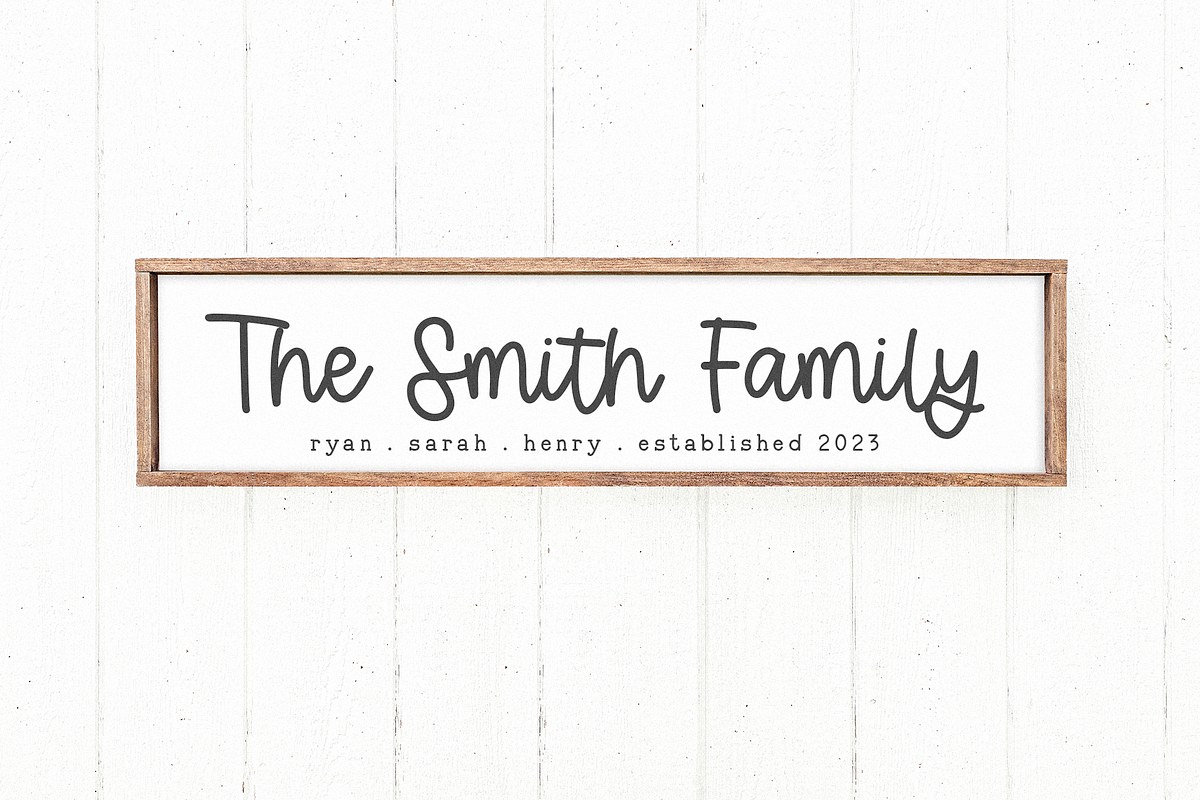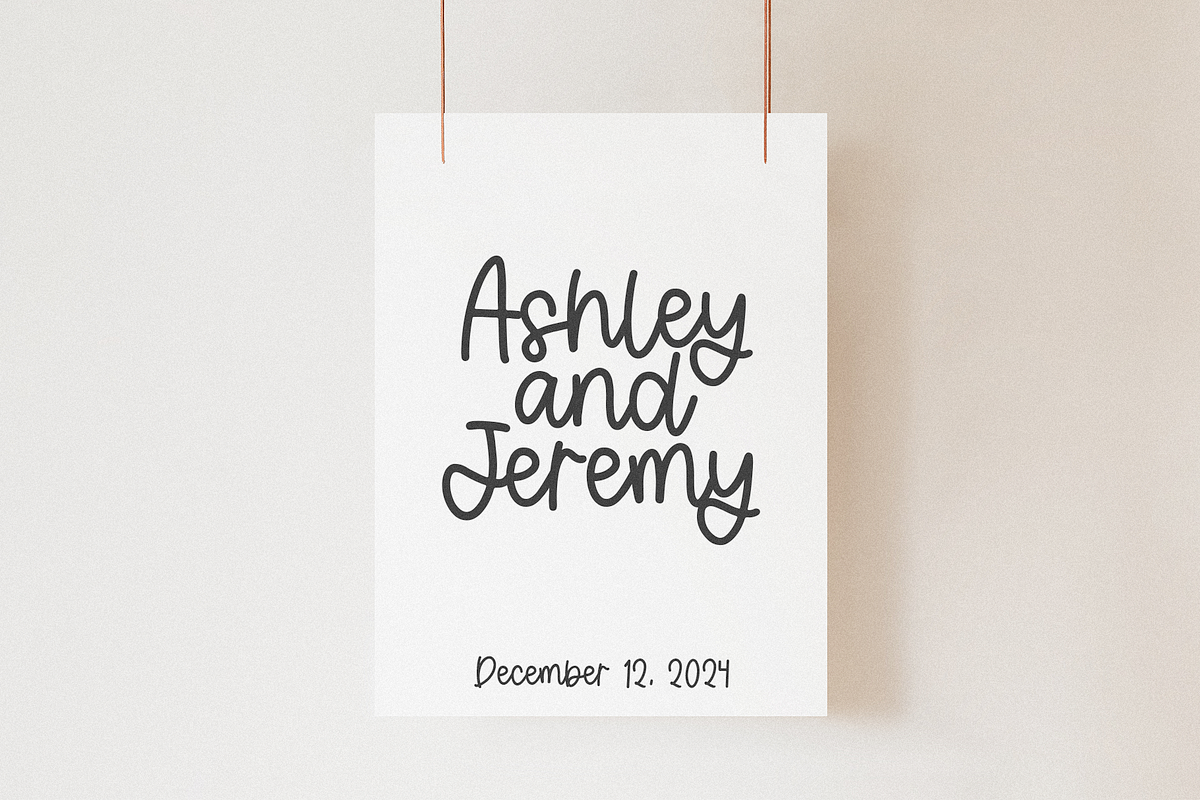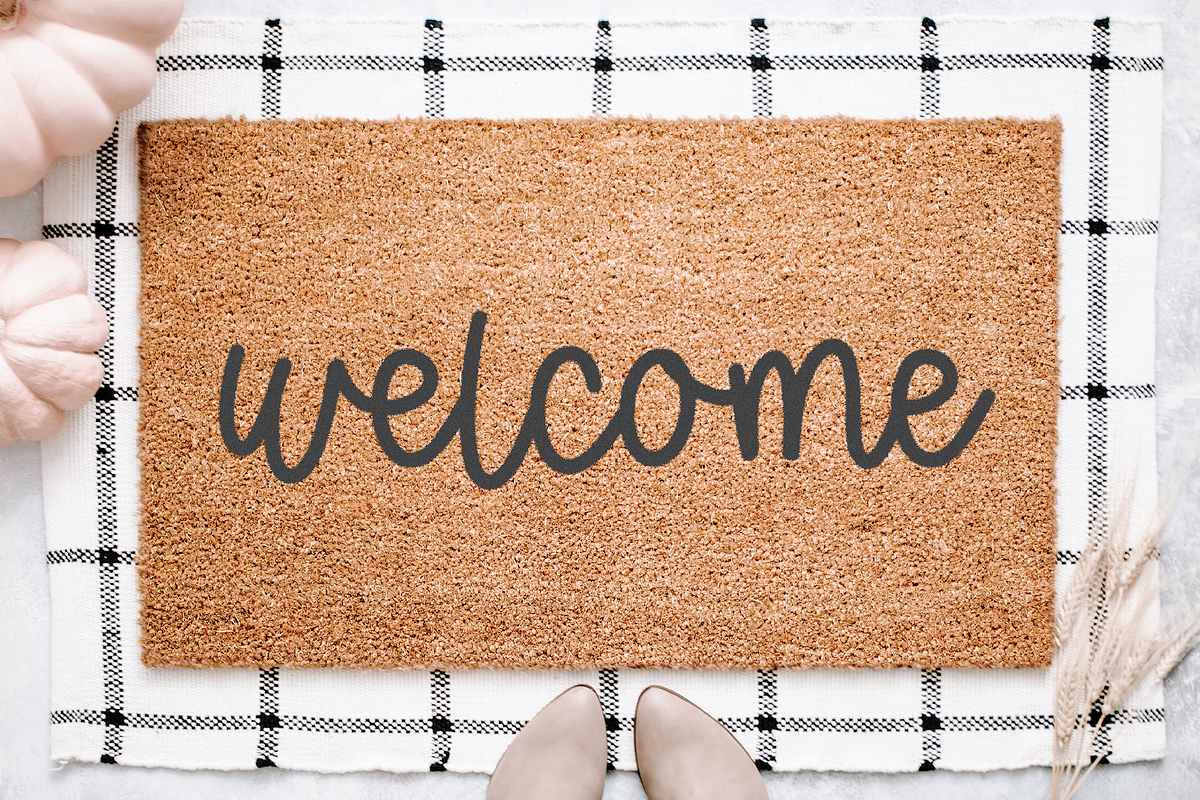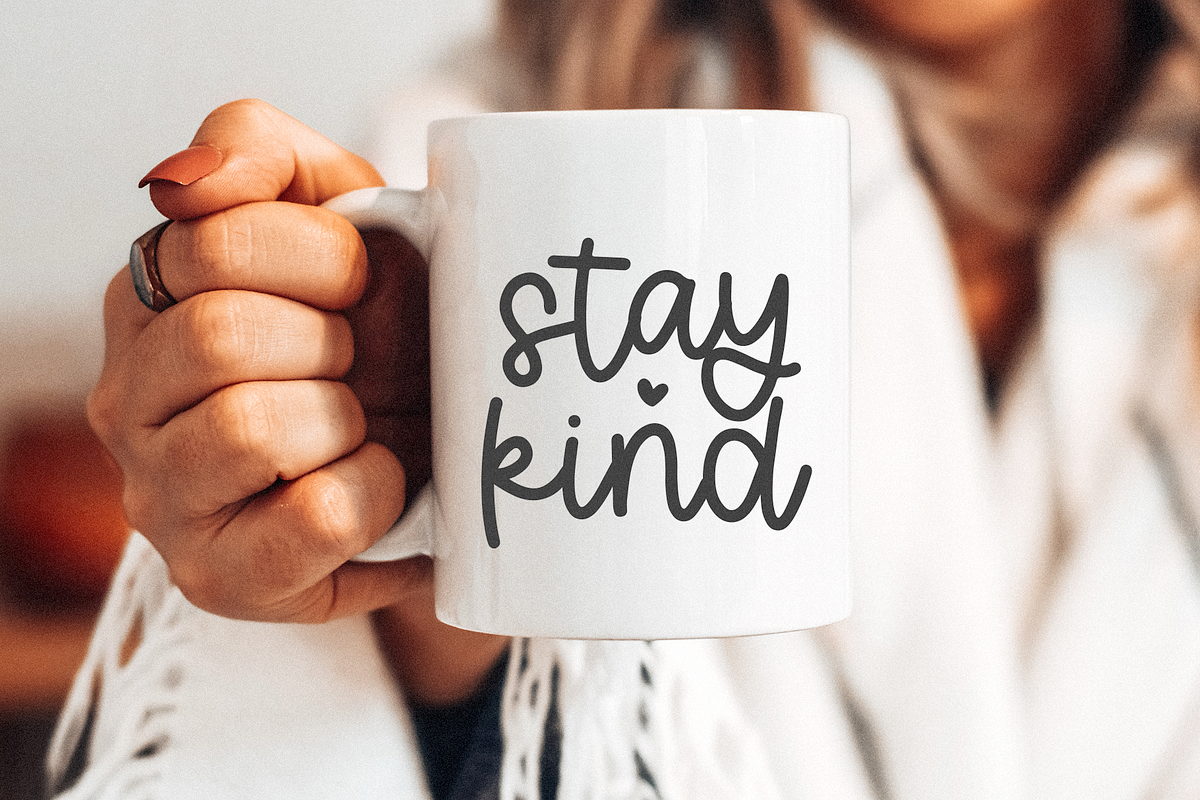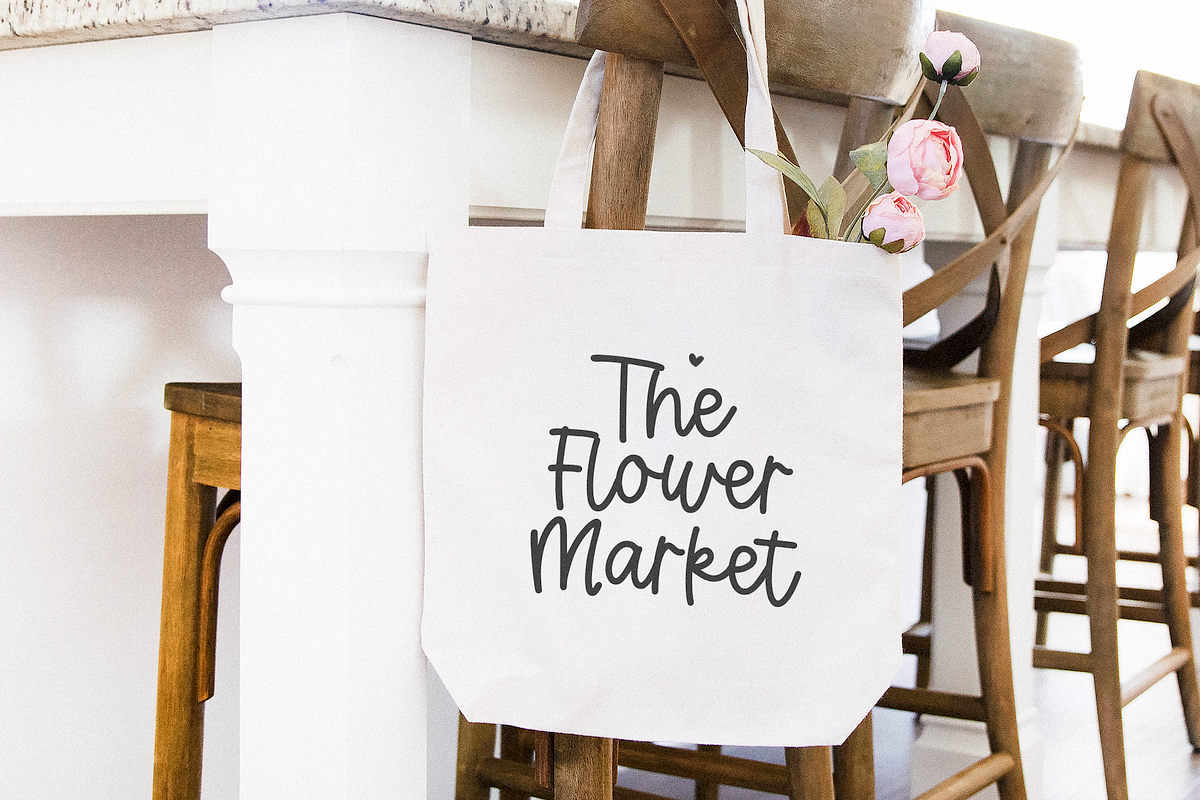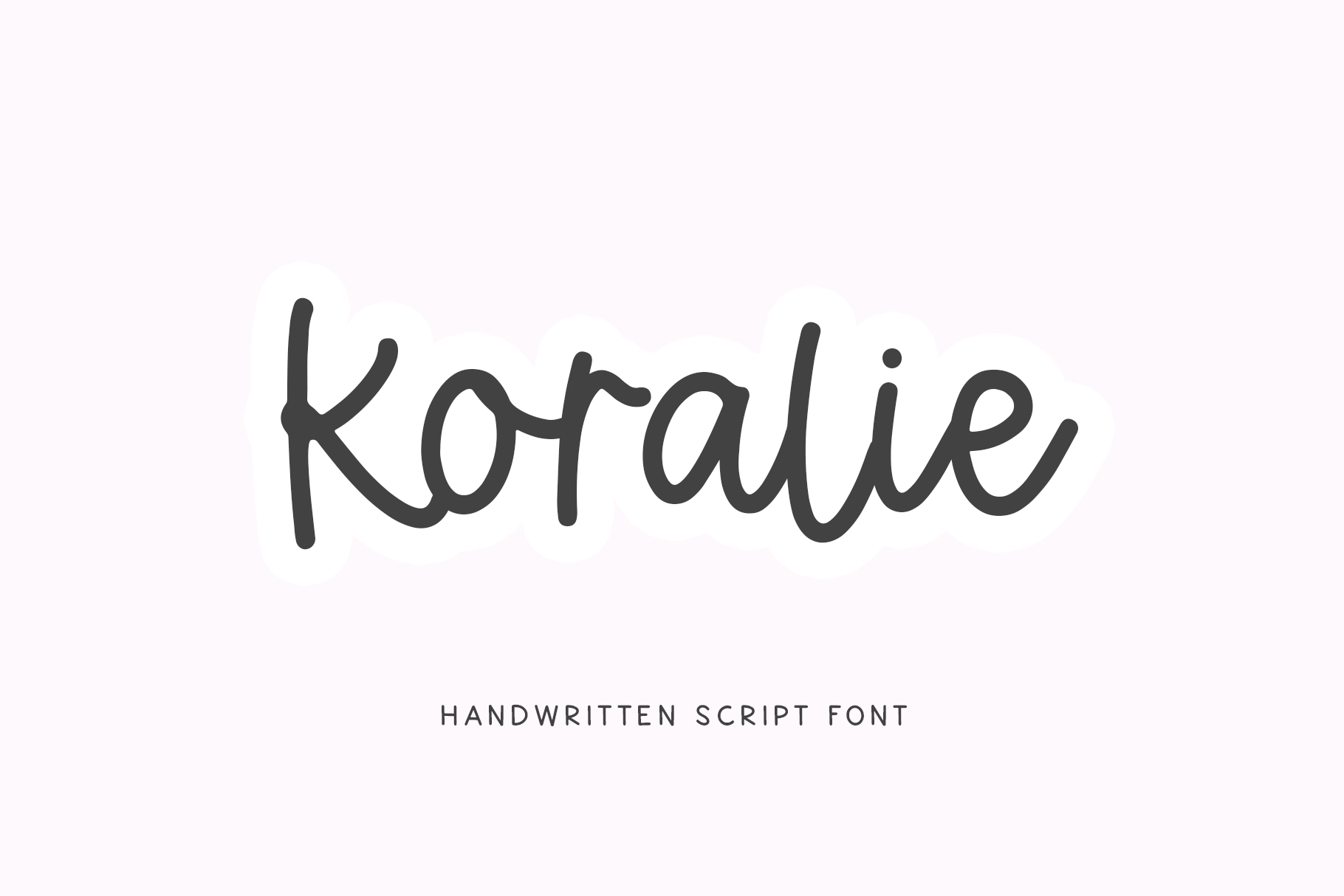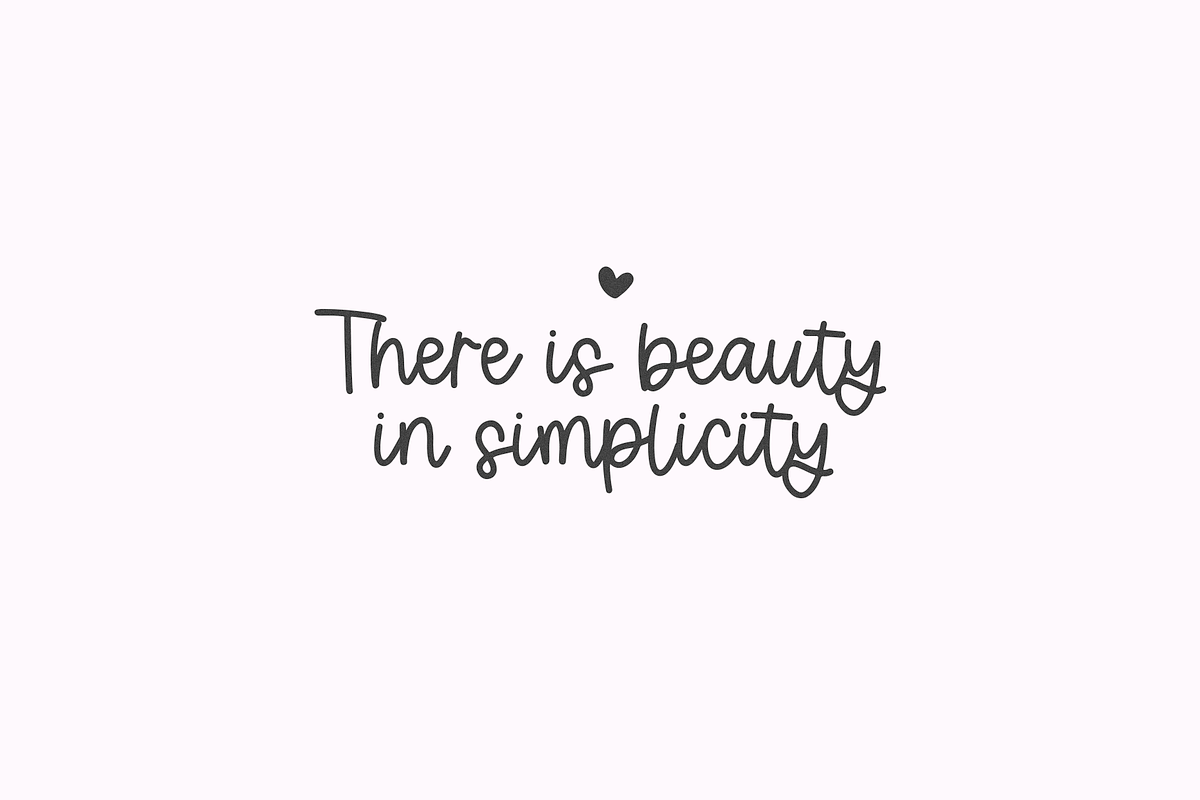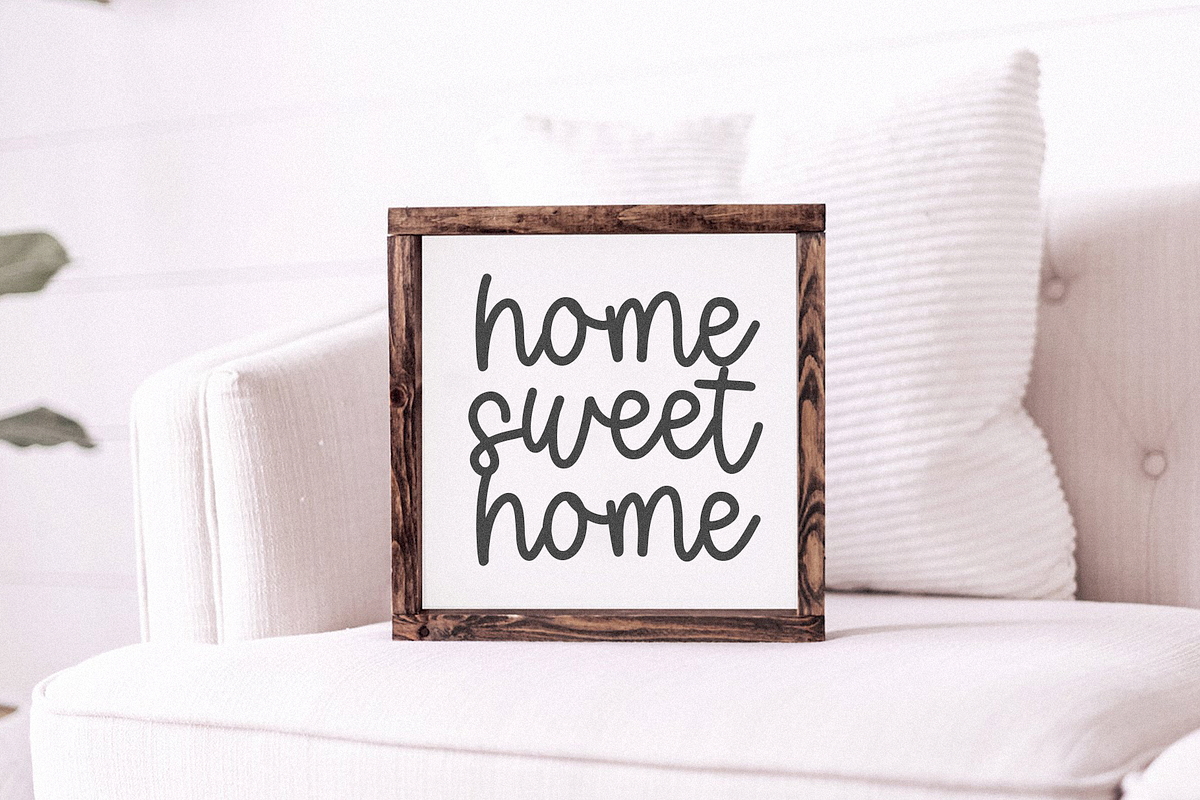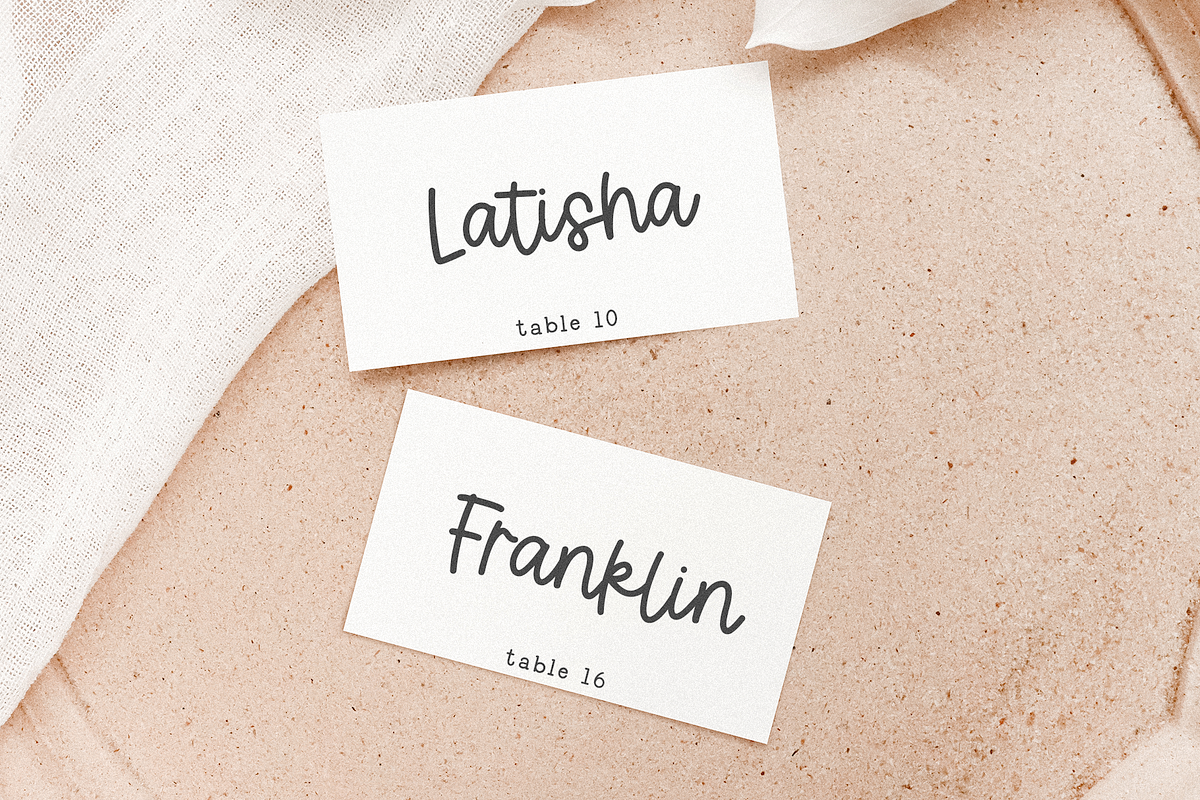
Koralie | Modern Script Font
Koralie is a handwritten script font.
This font is perfect for your craft projects, svg files, farmhouse designs, wedding decor, logos, quotes and more!